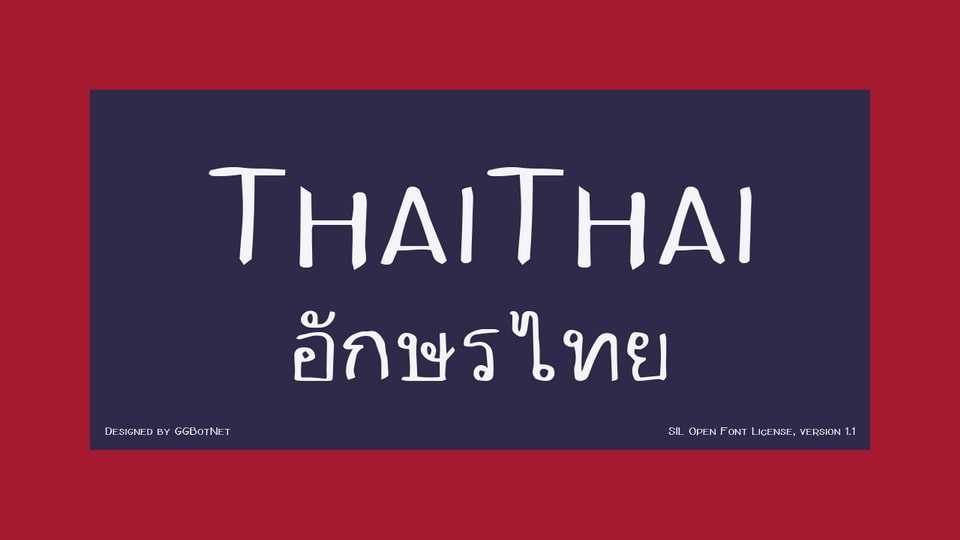
Download ThaiThai font, a casual and organic handwritten typeface that exudes warmth and authenticity. It captures the essence of a natural handwritten style, featuring soft, flowing strokes.